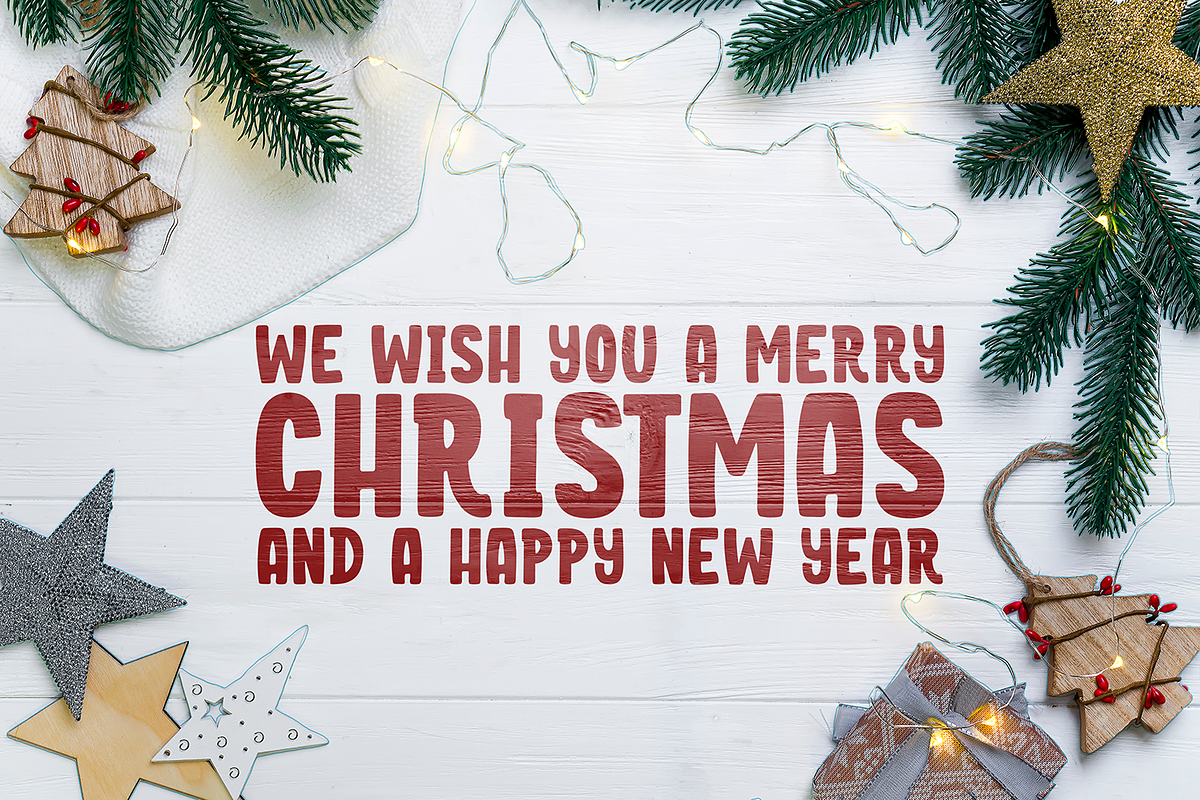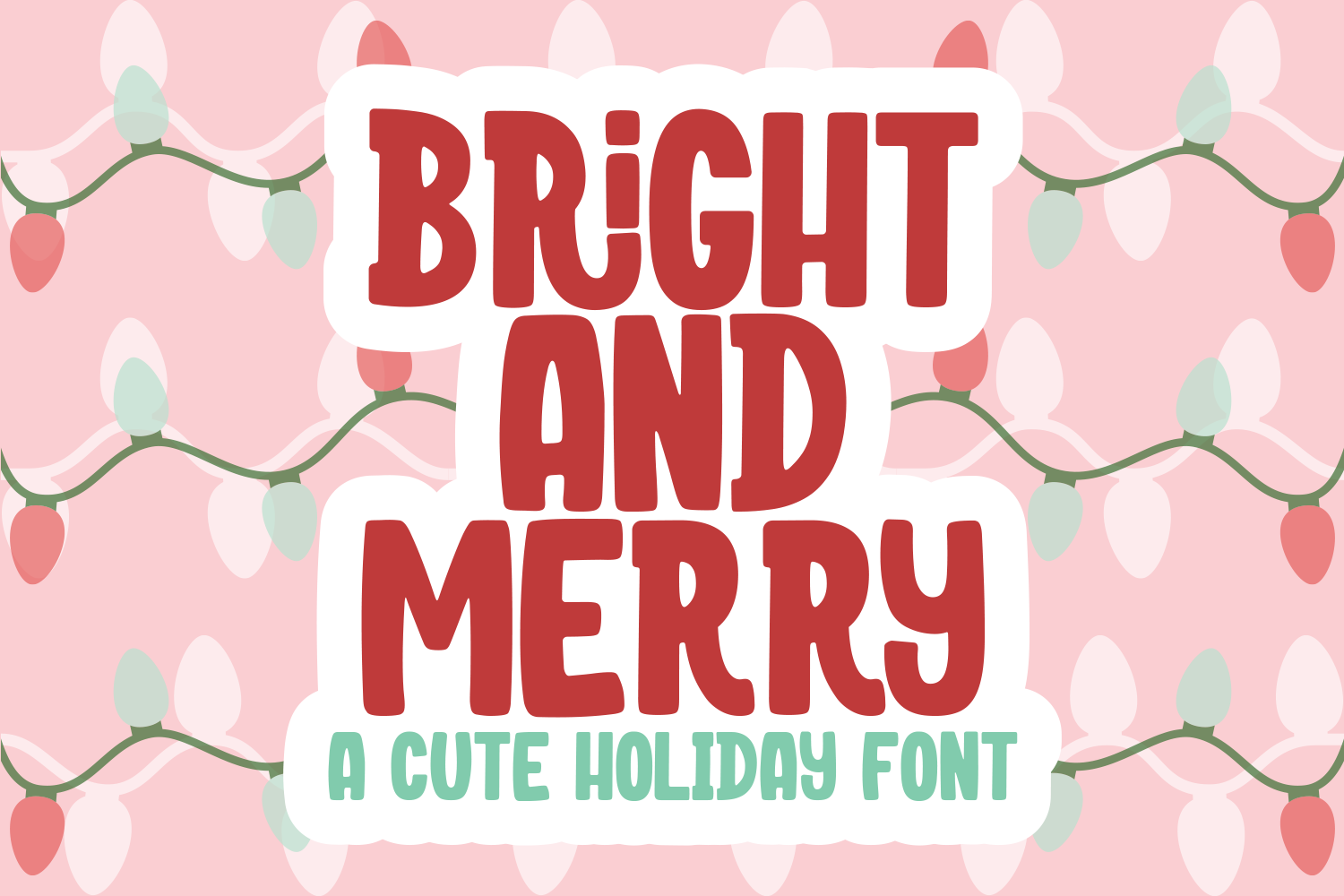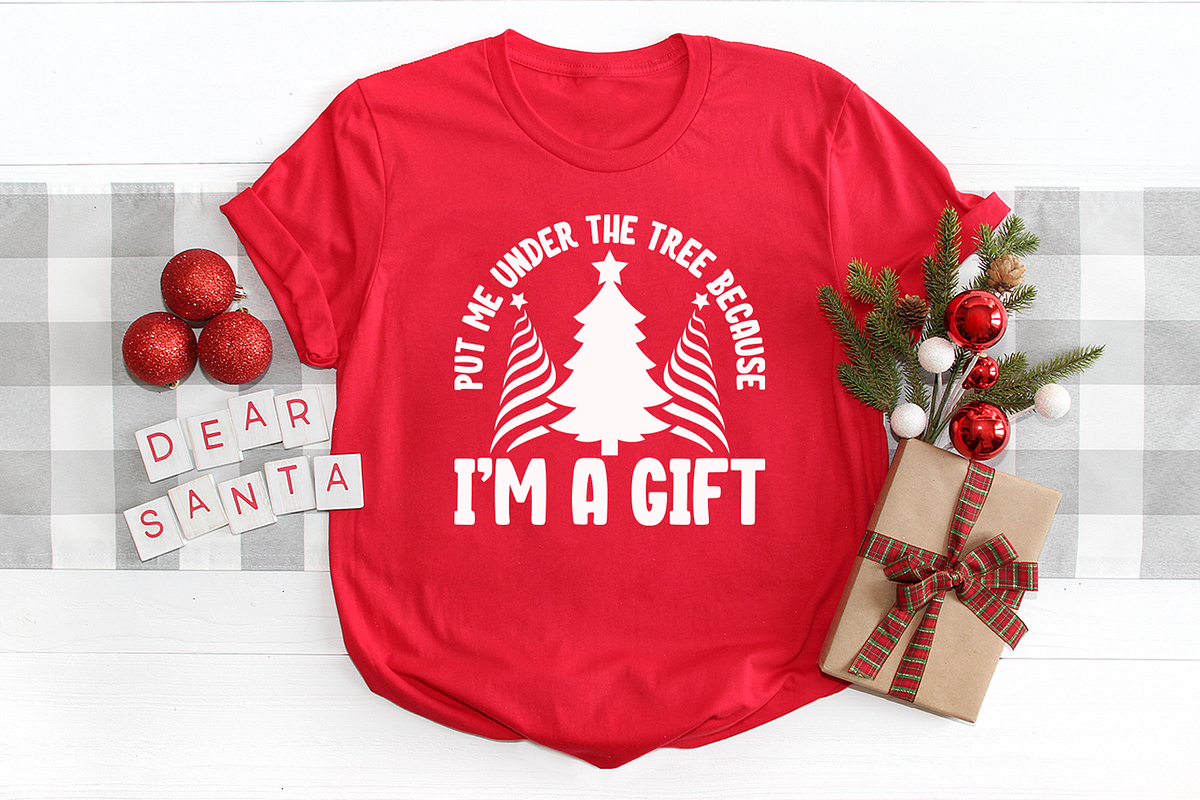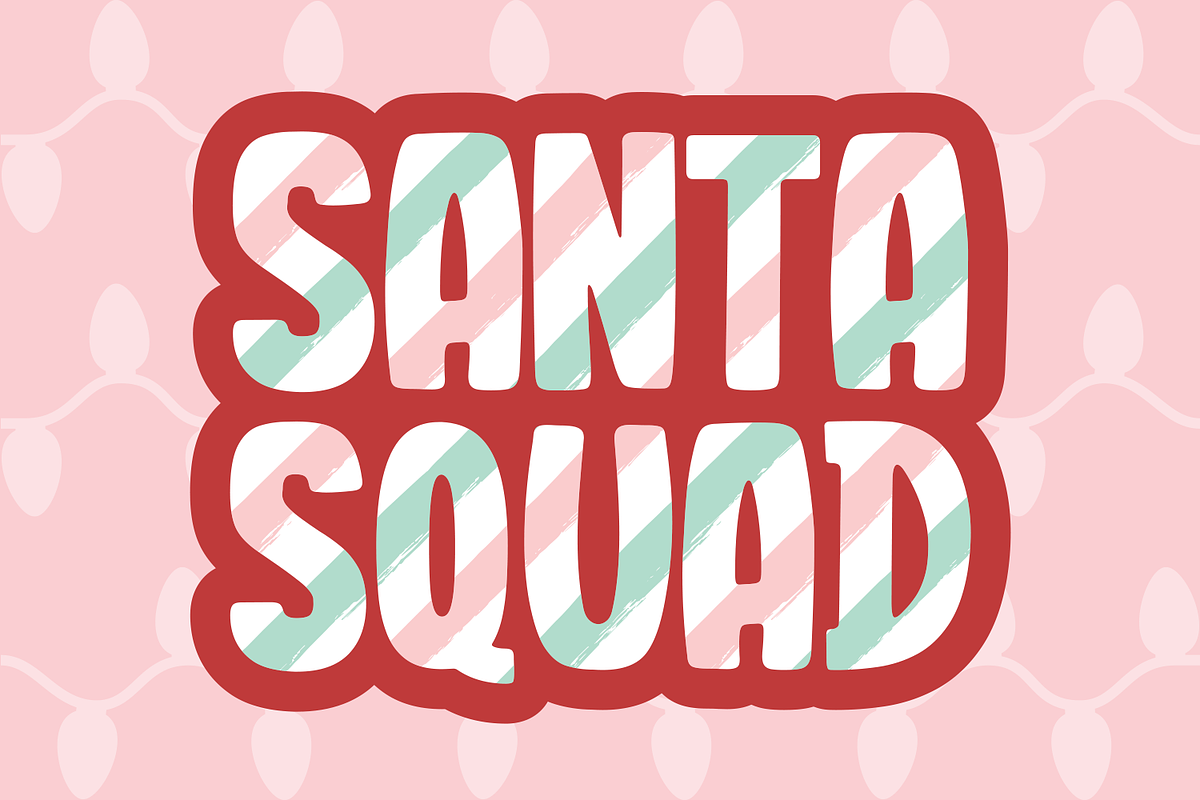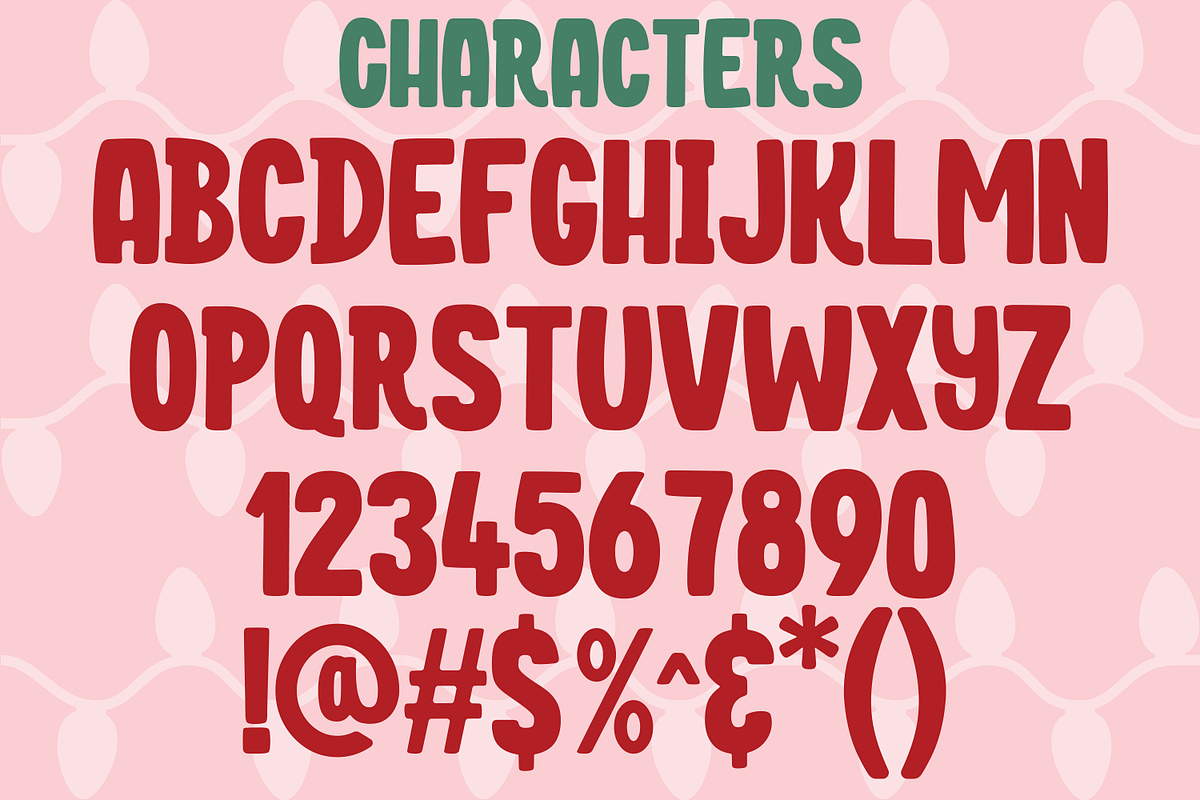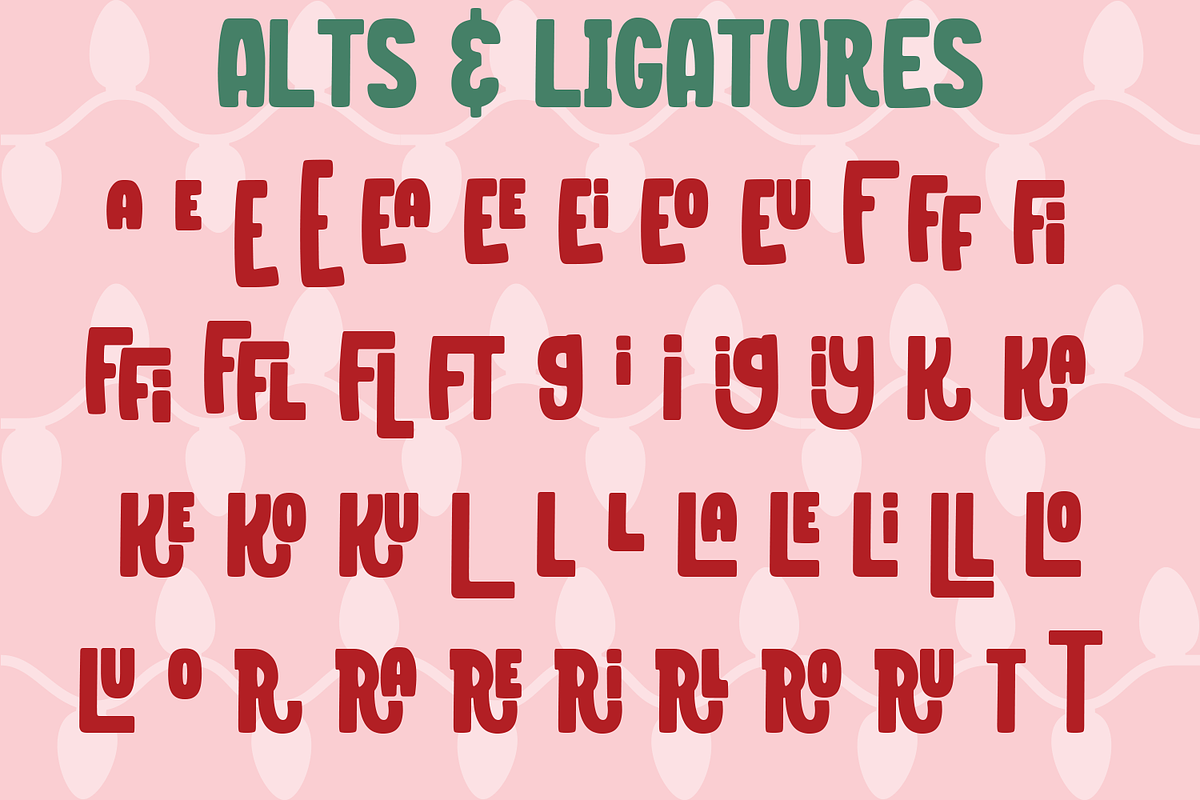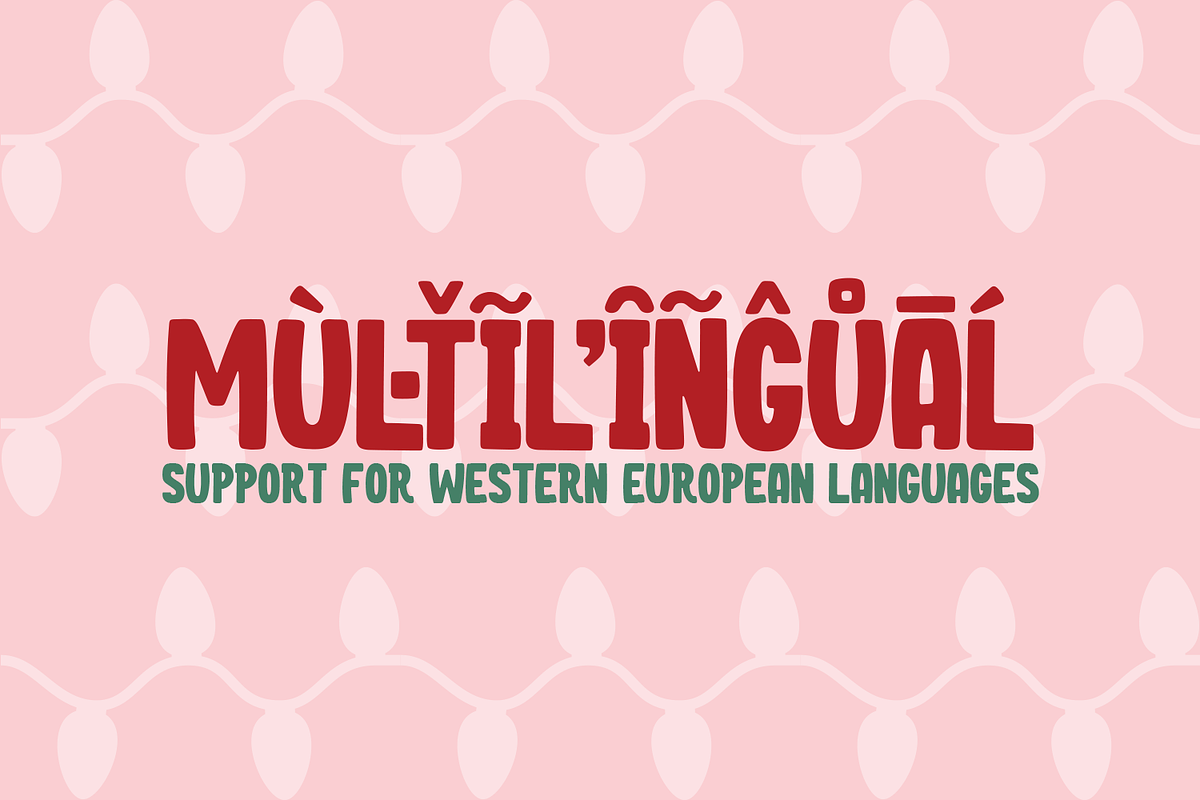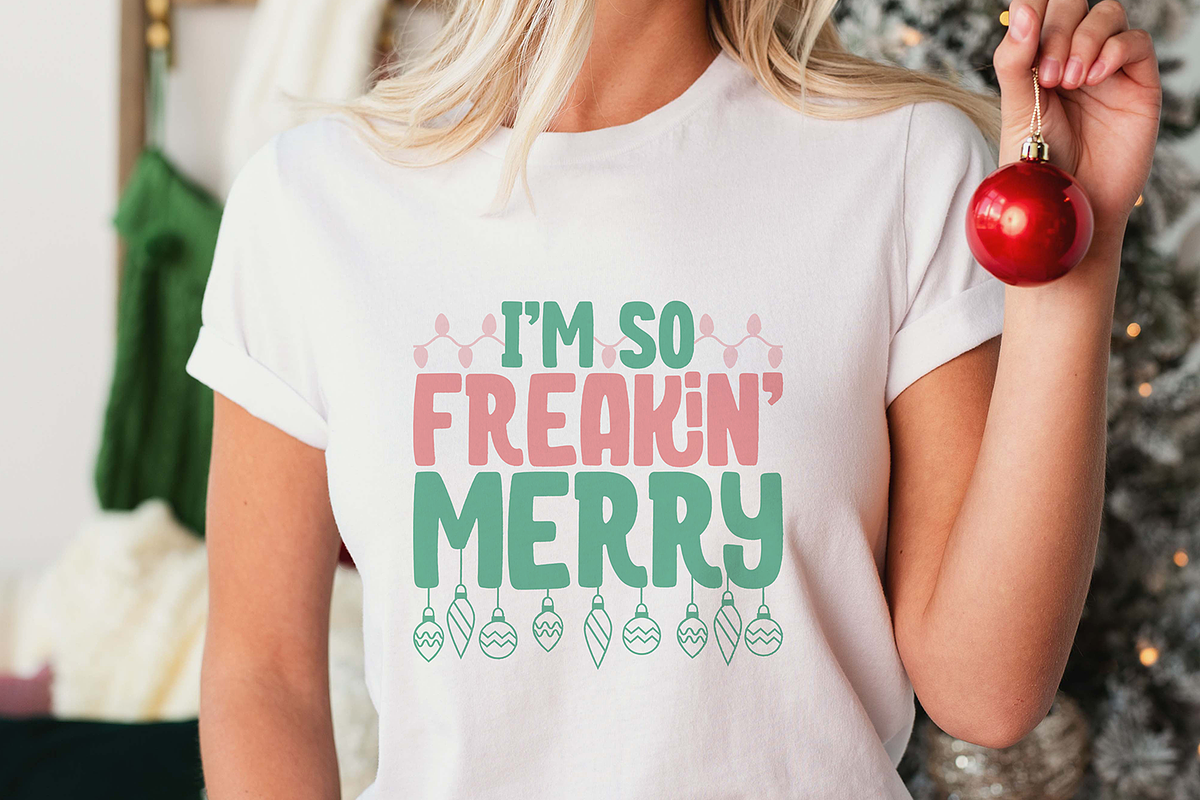
Bright and Merry a cute Holiday Font
Meet Bright and Merry, a cute holiday font!
This font is perfect for t-shirts or branding. Try it in a logo or use it in sublimation design with a texture or pattern overlay. With a total of 557 glyphs, it's a really fun font that I know you'll have a lot of fun using!
This font includes support for most Western European languages with full Basic Latin, Latin 1 supplement, and Latin extended A sets, as well as partial Latin extended B and combining diacritical marks.
Also included are standard ligatures, stylistic alts, and discretionary ligatures.